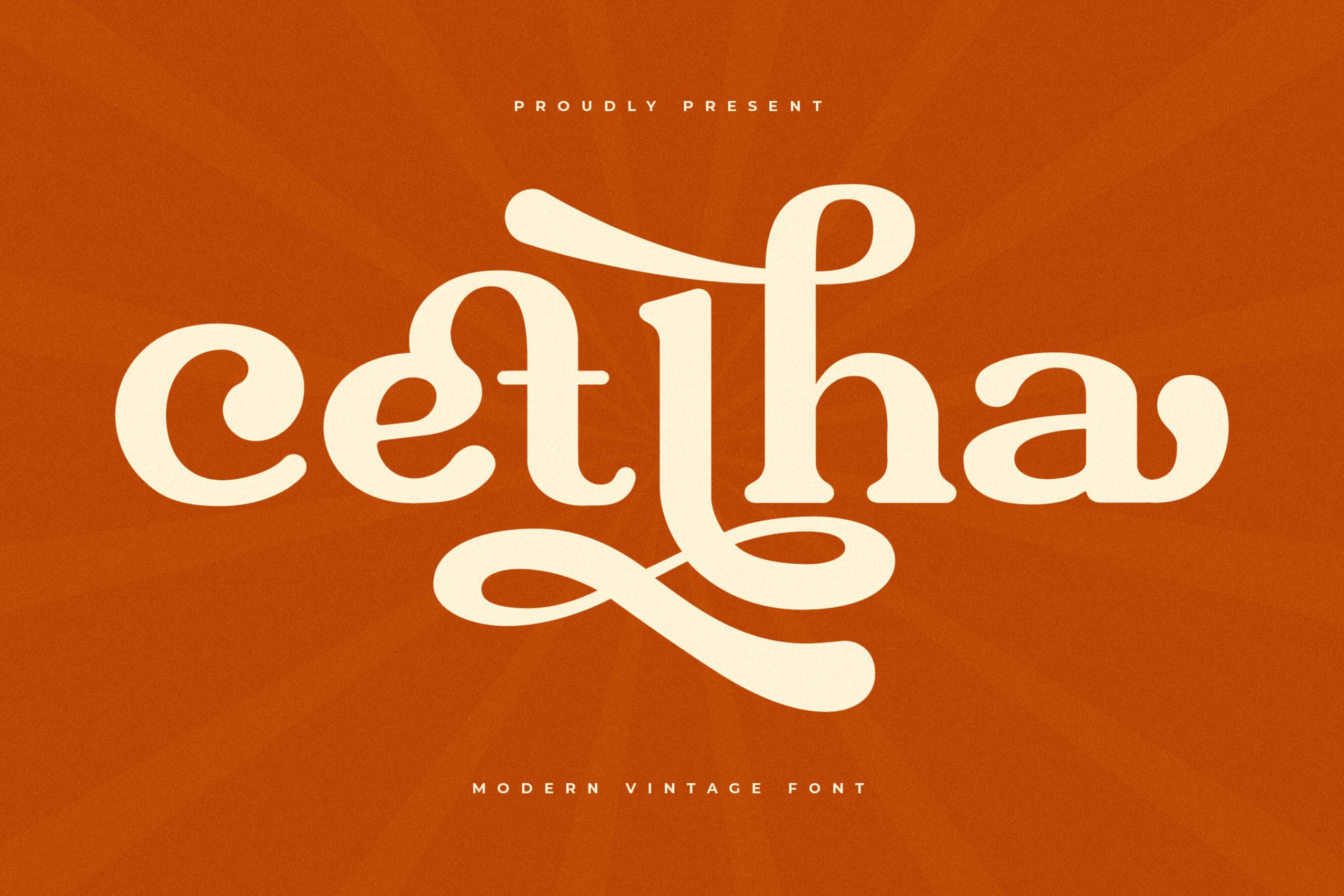
Cetlha Font
Cetlha is classified as an old-style serif font. Governed perfectly for sportswear like t-shirts, hoodies, caps and other accessories, keeping up the look of the brand.
Cetlha Serif Font